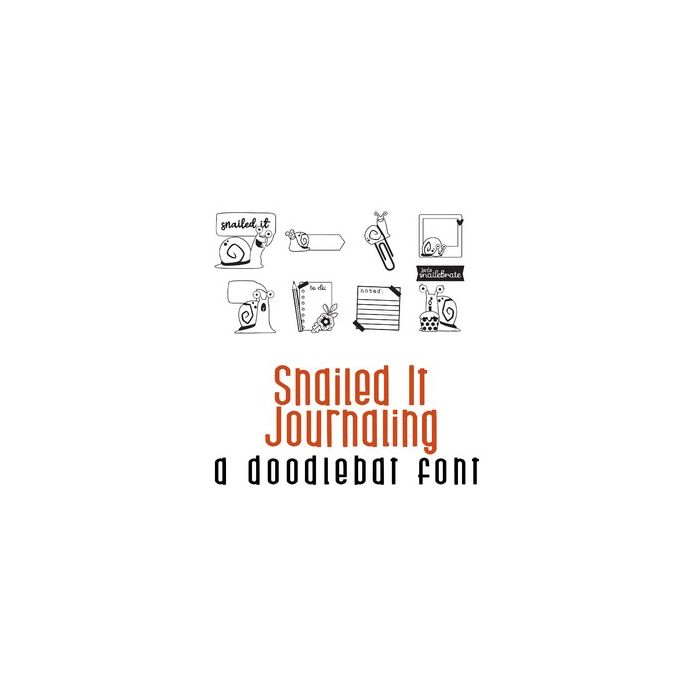
Our Snailed It characters are back and make for adorable journaling imagery! This doodlebat font features 26 snail themed journaling items, frames and more! Perfect for cards, crafts, gifts, decor, planner stickers, scrapbook pages and more!